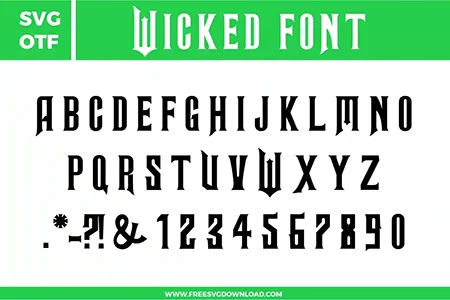
Wicked Font Free SVG File
This Wicked Font free svg files set features a complete sharp, gothic-style alphabet A-Z, numbers 0-9, and special punctuation marks. The design is presented in a bold black color with elongated, pointed serifs and a wicked, theatrical aesthetic. Each character has a tall, narrow structure with aggressive angles, making it a perfect high-quality digital download for musical-themed or Halloween crafting.
• Wicked Font SVG: Full uppercase alphabet set with matching numbers and punctuation, designed in a tall theatrical serif style with sharp pointed terminals, narrow proportions, and dramatic gothic-inspired letter shapes.